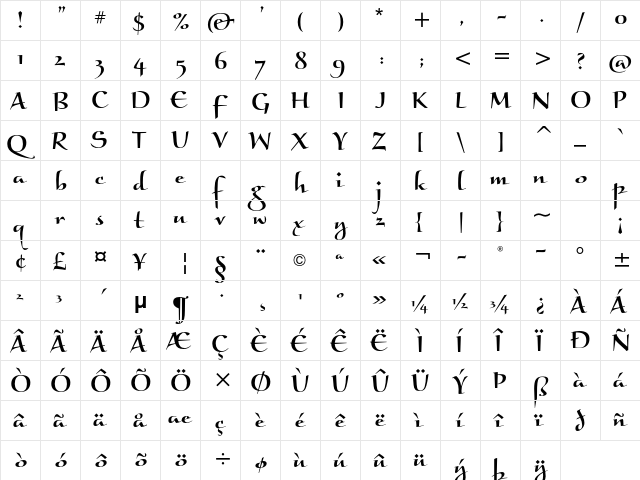
Braganza ITC Std Regular Font Preview
Braganza ITC Std Regular
Braganza ITC Std Regular Font Details
| Designer | Phill Grimshaw |
Design Context for Braganza ITC Std Typeface
Braganza ITC Std is a composed and adaptable typeface that performs quietly and consistently across a wide range of design contexts.